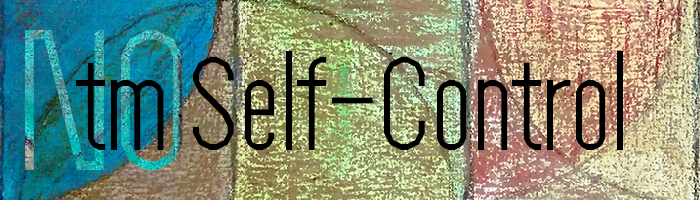
tm Self Control
by thalamic
Really amazing. Looks like something laynecom might do. IMO you could re-work Z, z and 5. 10/10+fav
Congratulations! FontStruct Staff have deemed your FontStruction worthy of special mention. “tm Self Control” is now a Top Pick.
Very elegant indeed.